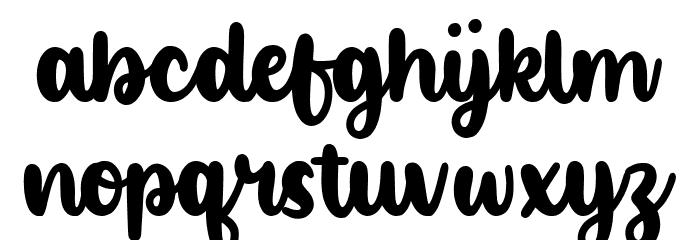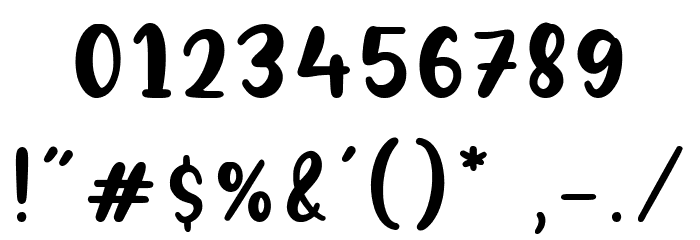
Blonde Unicorn Font
This font features a playful and energetic script style with bold, rounded strokes that give it a friendly and approachable appearance. The letters are connected in a flowing manner, reminiscent of casual handwriting, yet maintain a consistent and polished look. The uppercase letters are slightly larger and more pronounced, while the lowercase letters maintain a uniform height, enhancing readability. The numerals and special characters follow the same stylistic cues, ensuring a cohesive look across all text. This font's lively and dynamic nature makes it suitable for projects that require a personal touch.
A bold, playful script font with flowing, connected letters and a friendly appearance.
- Proposed Projects: Ideal for greeting cards, invitations, playful branding, and social media graphics.
- Category: Script
- Overall Style: Playful
- Use Case: Logos, Headlines, Invitations